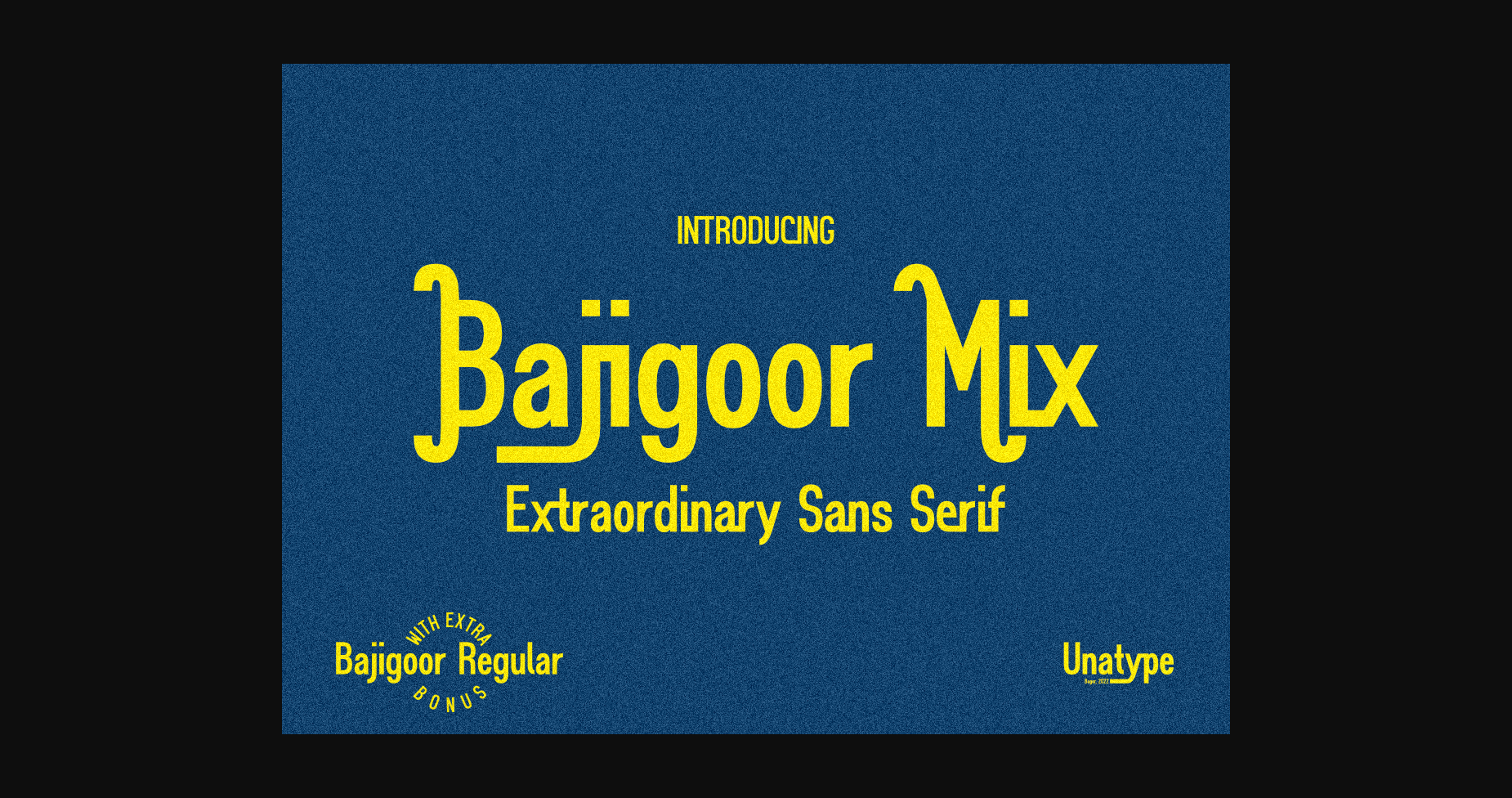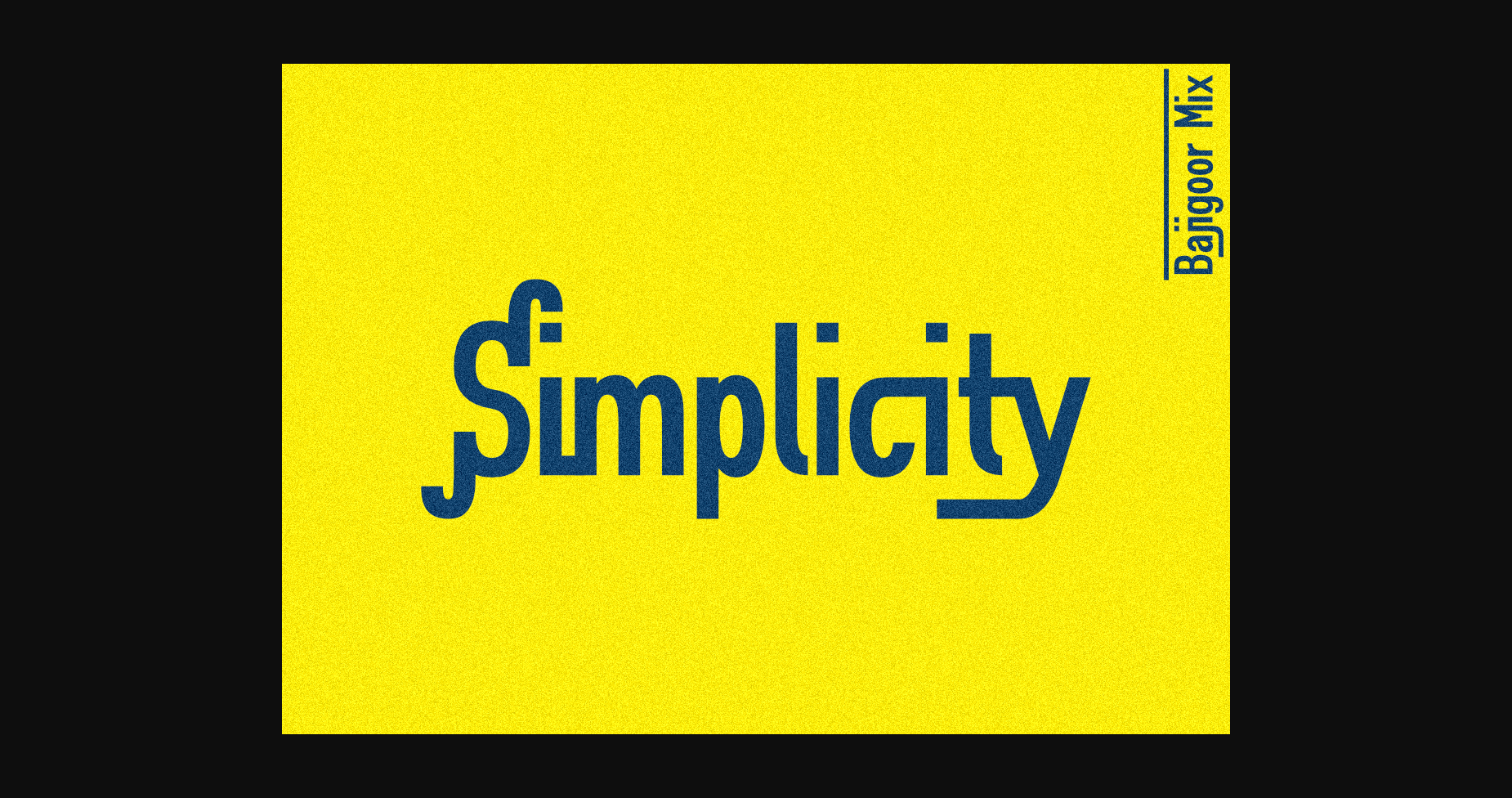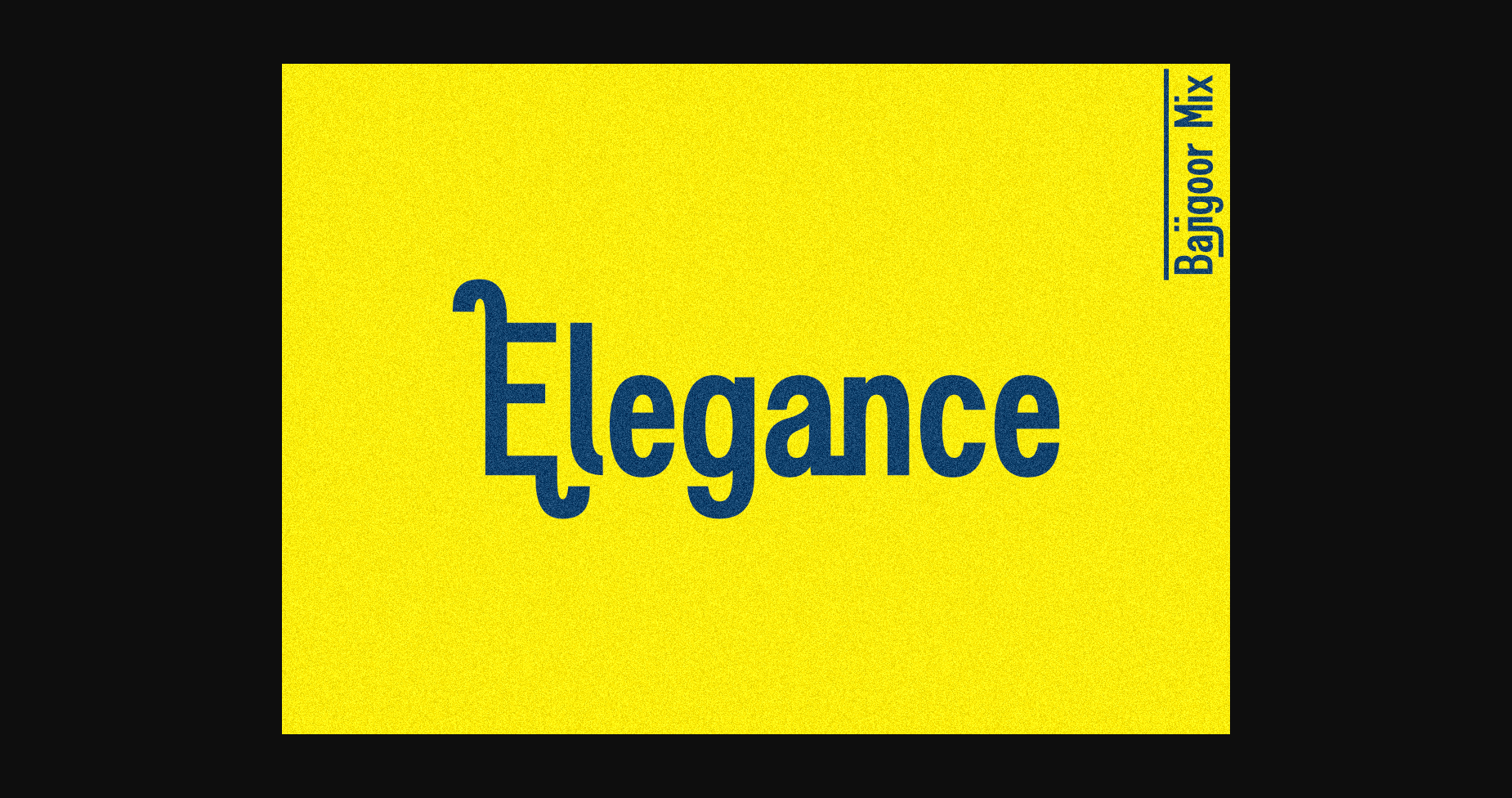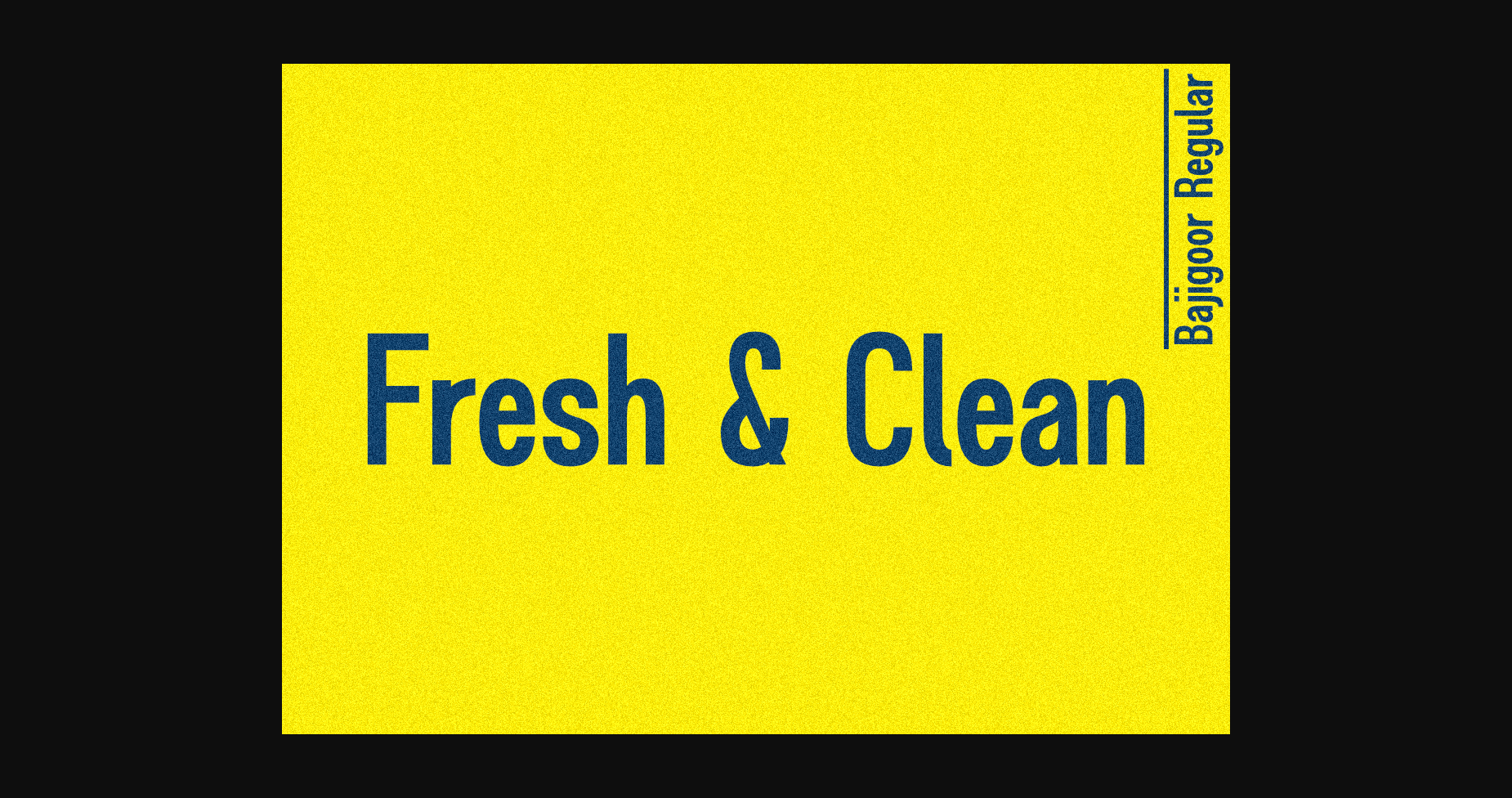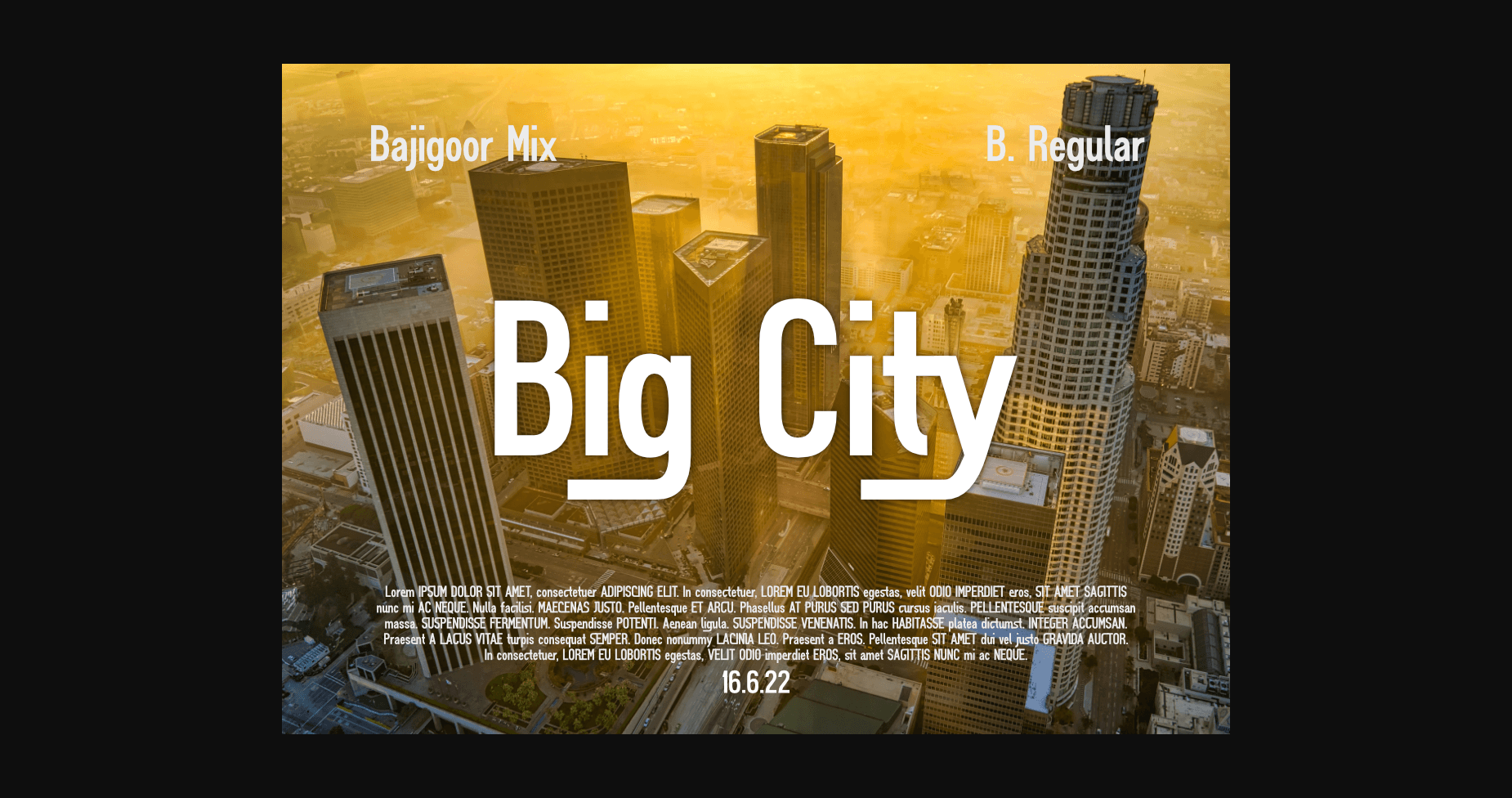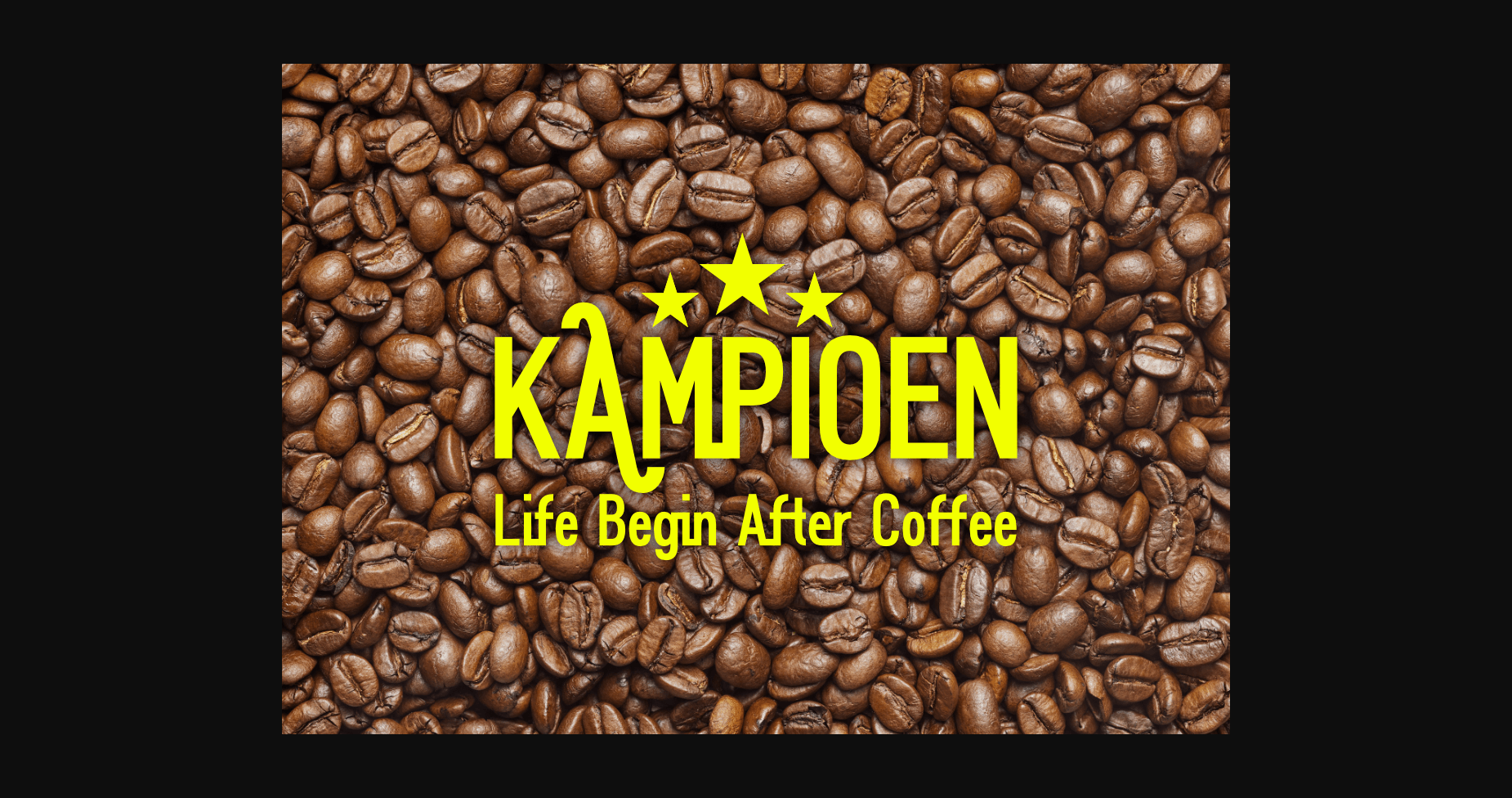
About Bajigoor Mix Duo Font
Bajigoor Mix Duo is a modern and extraordinary sans serif font. This font is perfectly suited for traditional media and the web. Great for crafters and graphic artists alike. Bajigoor Mix and Bajigoor Regular are great for creative projects, be it inspirational wall posters, logo type, or for communicating your brand.